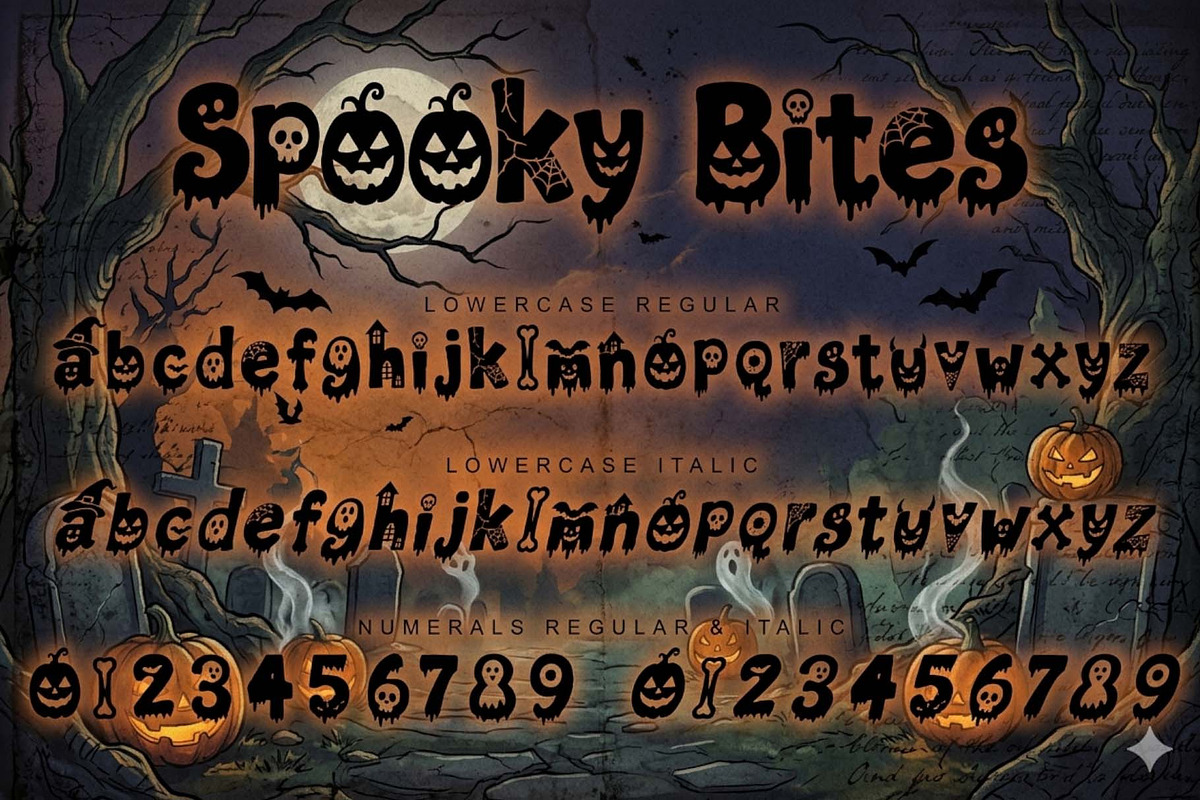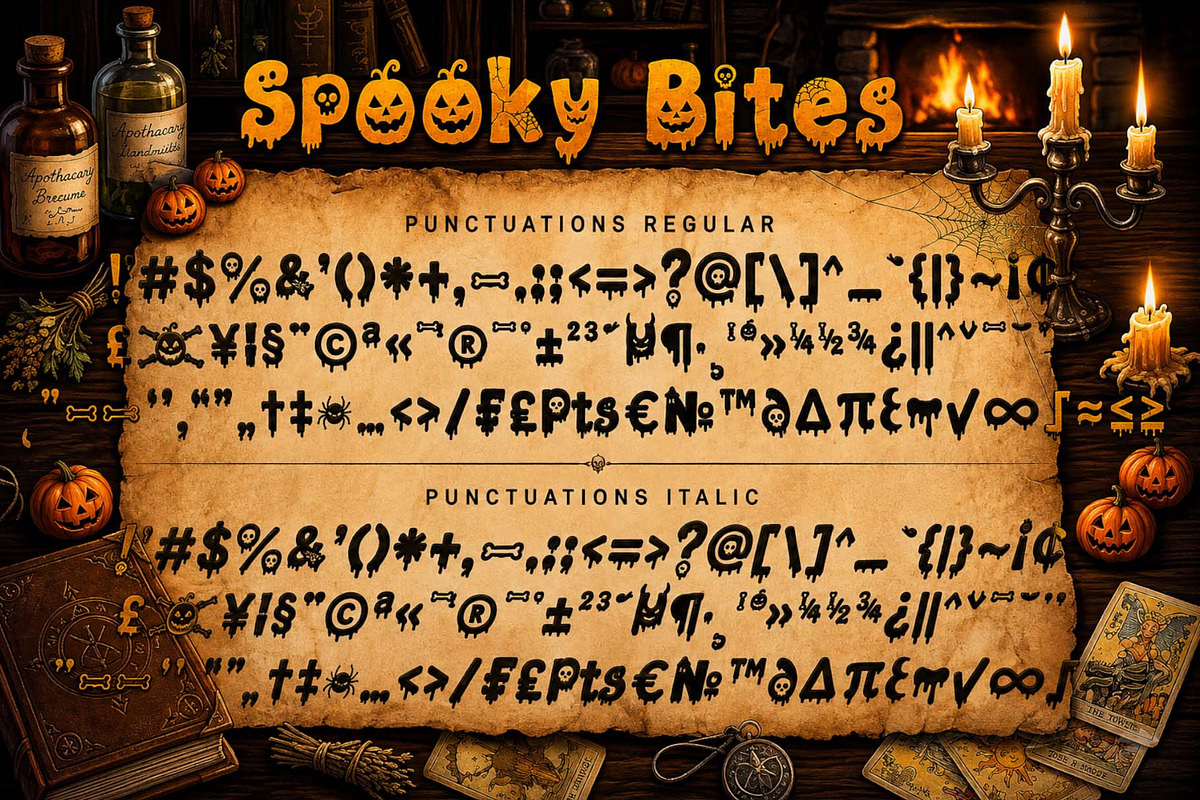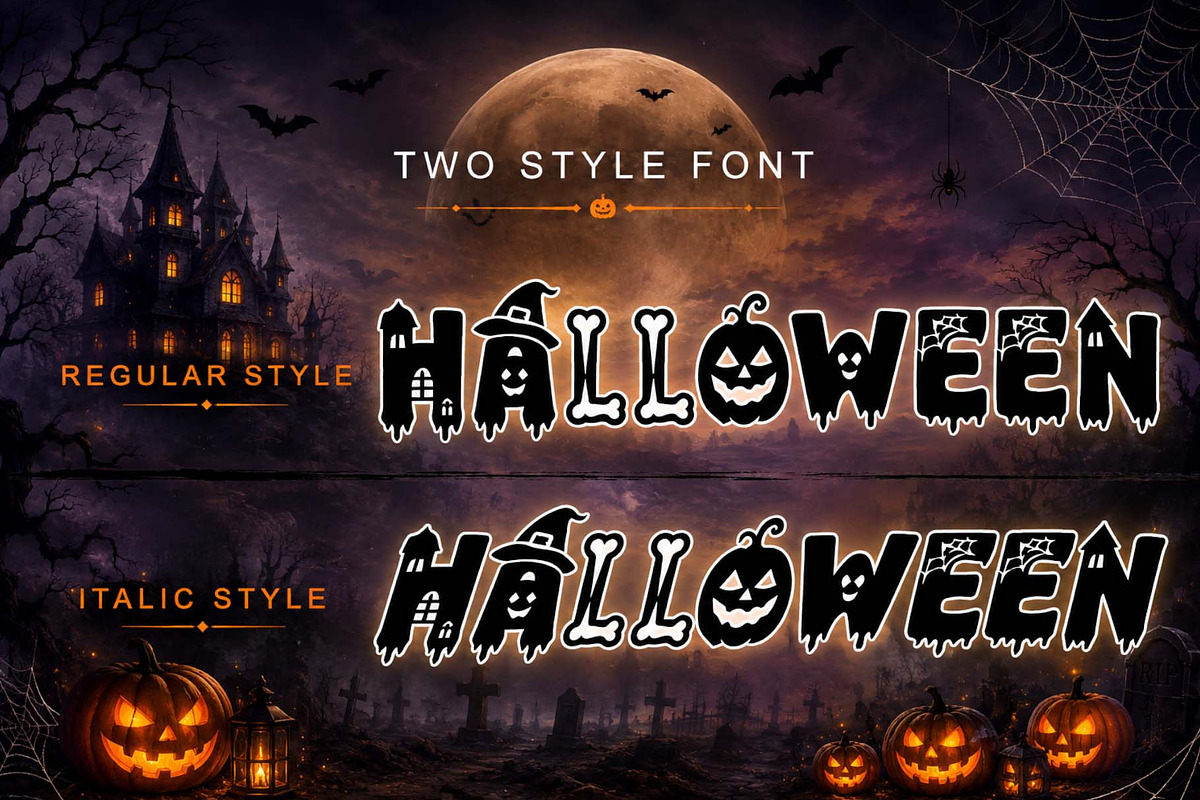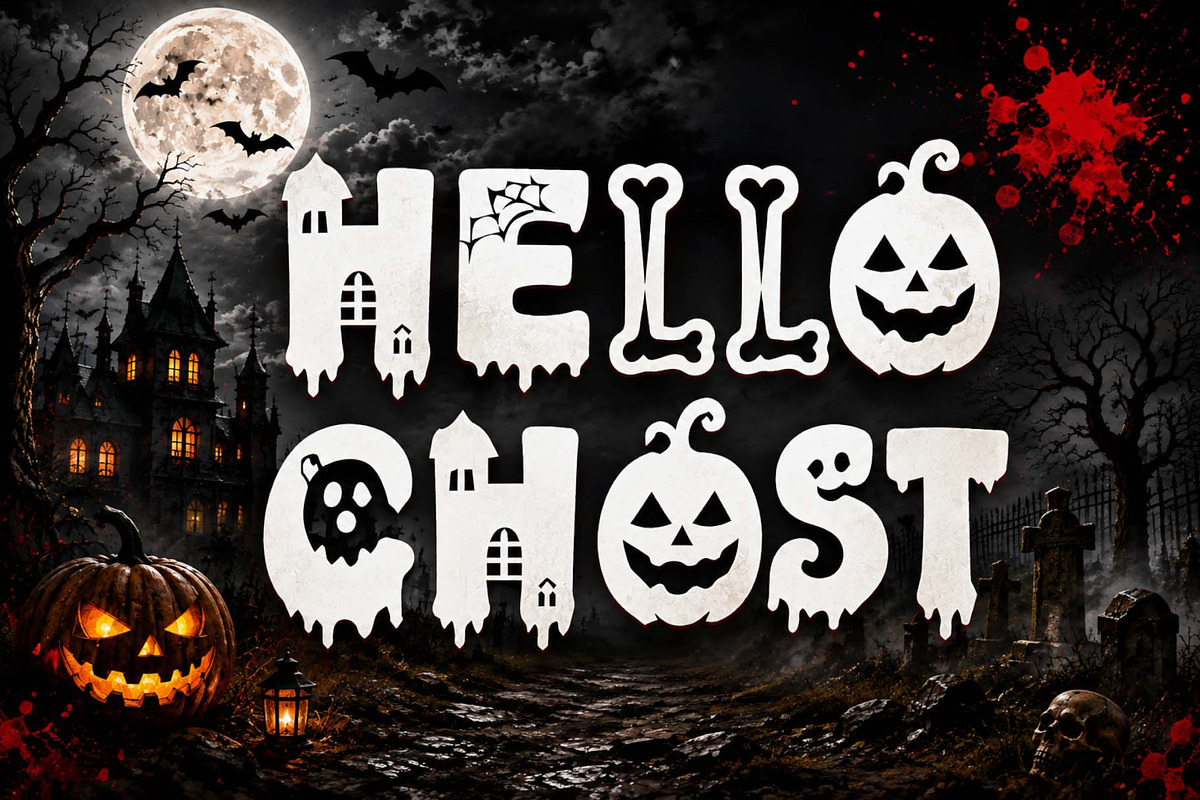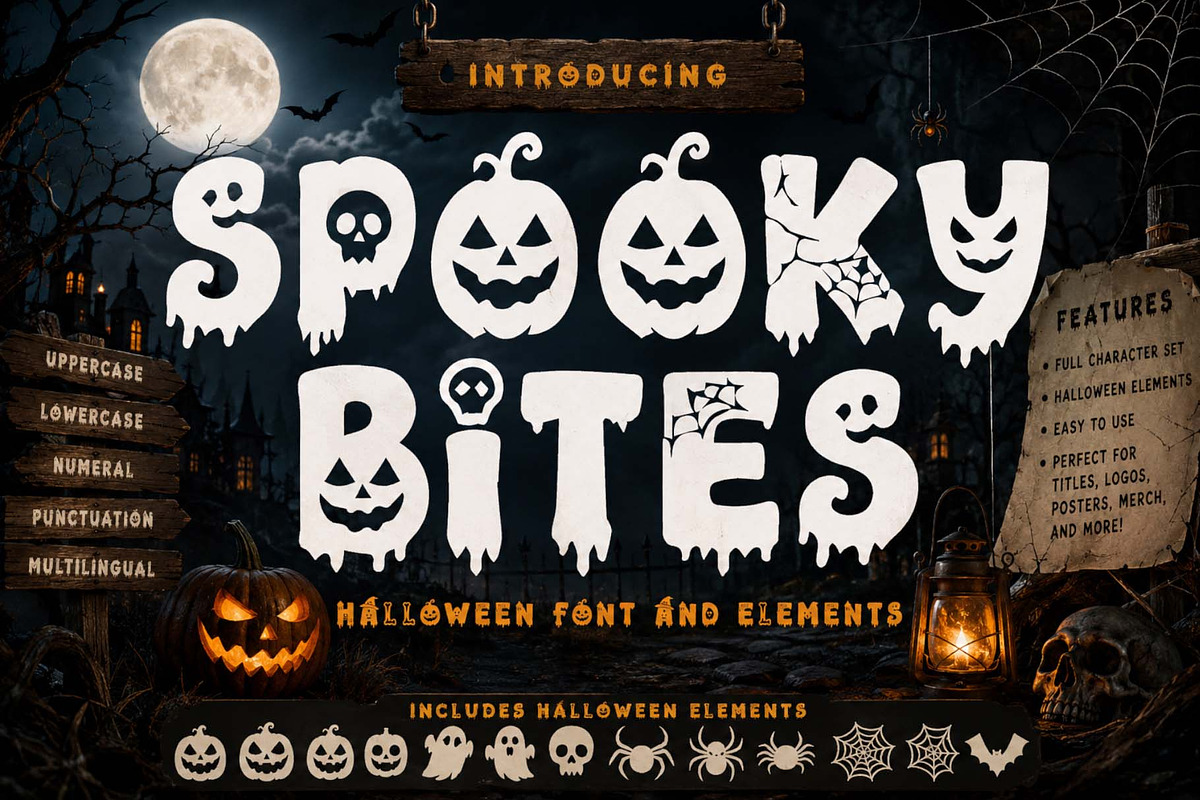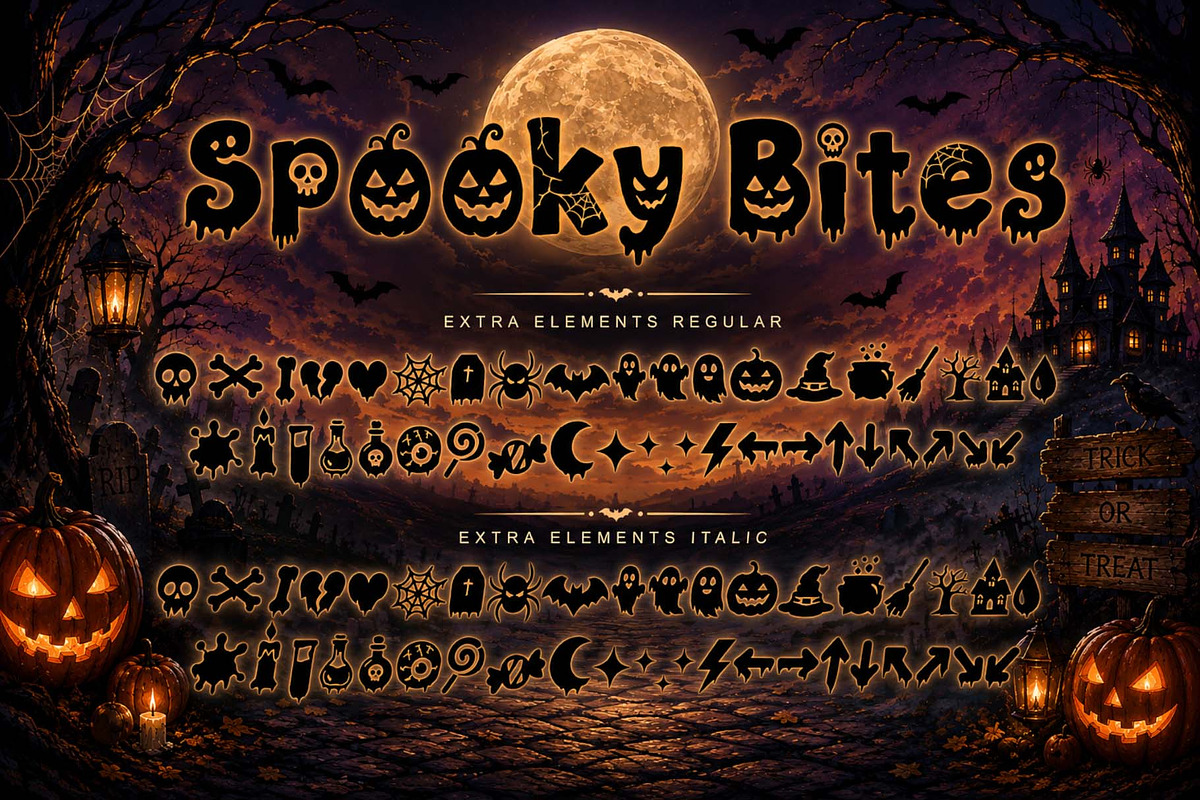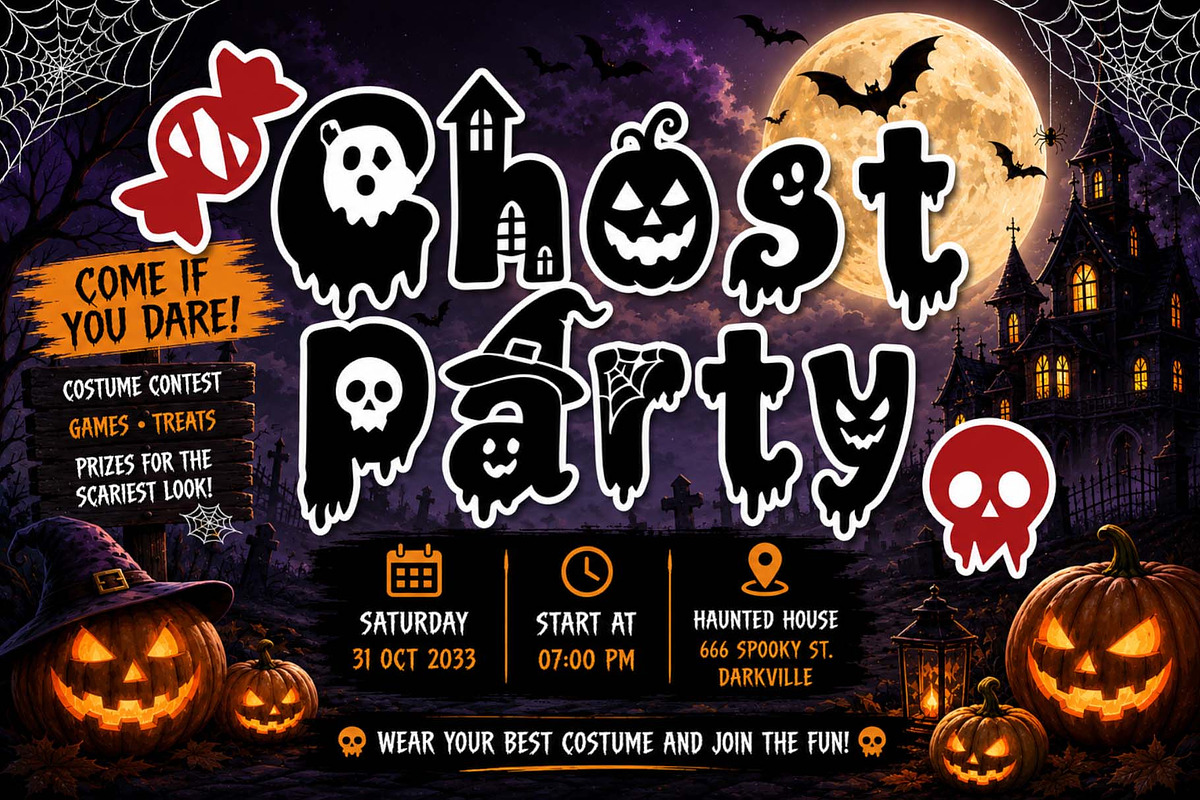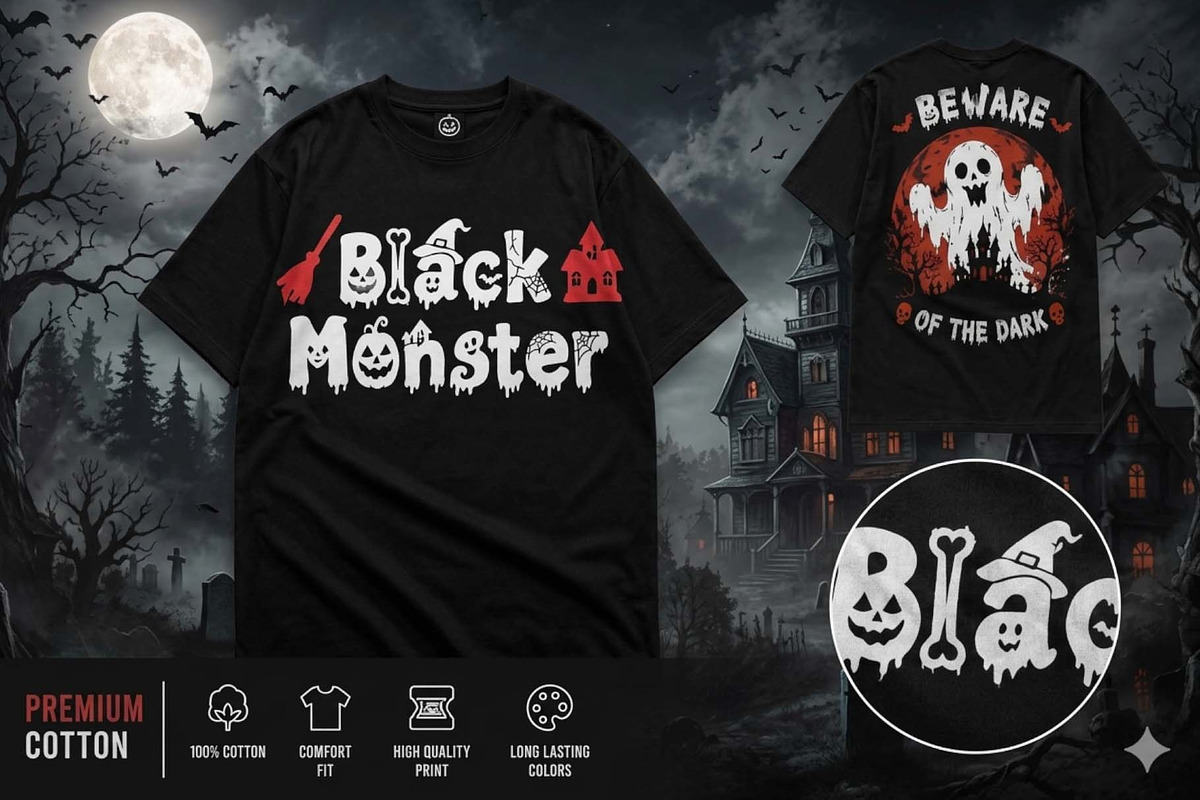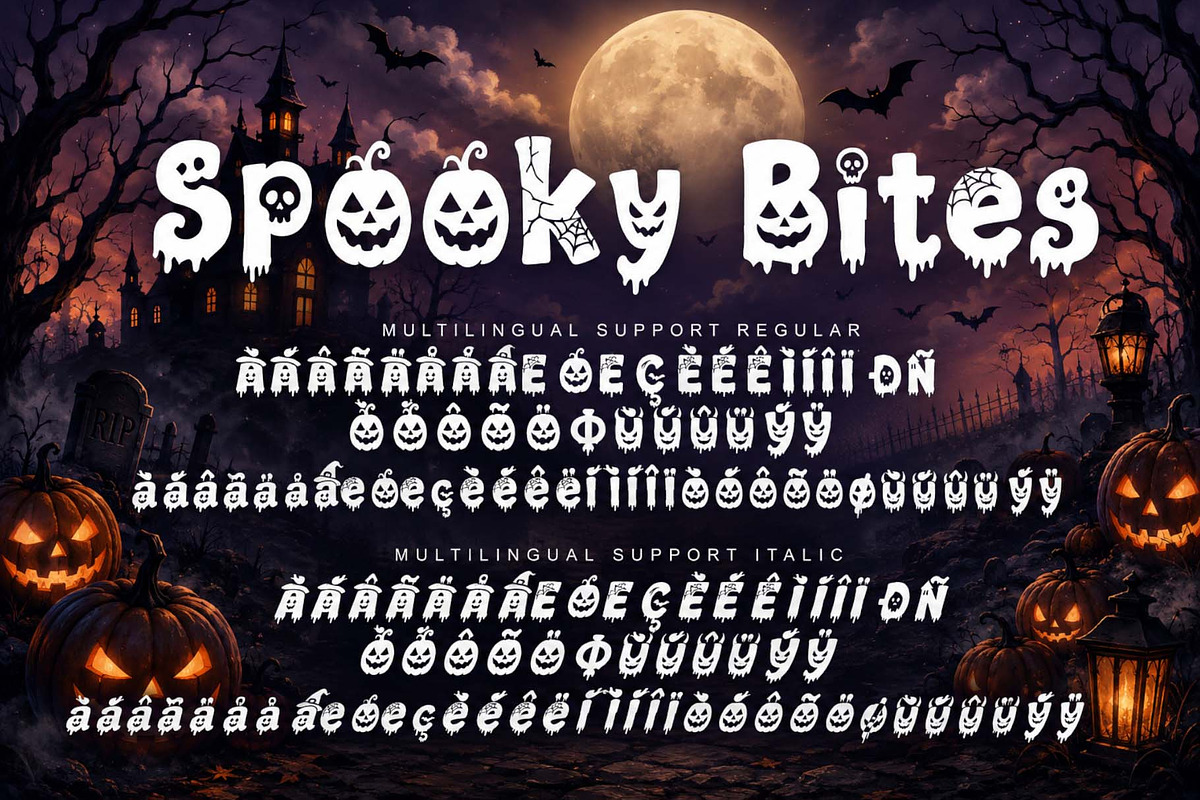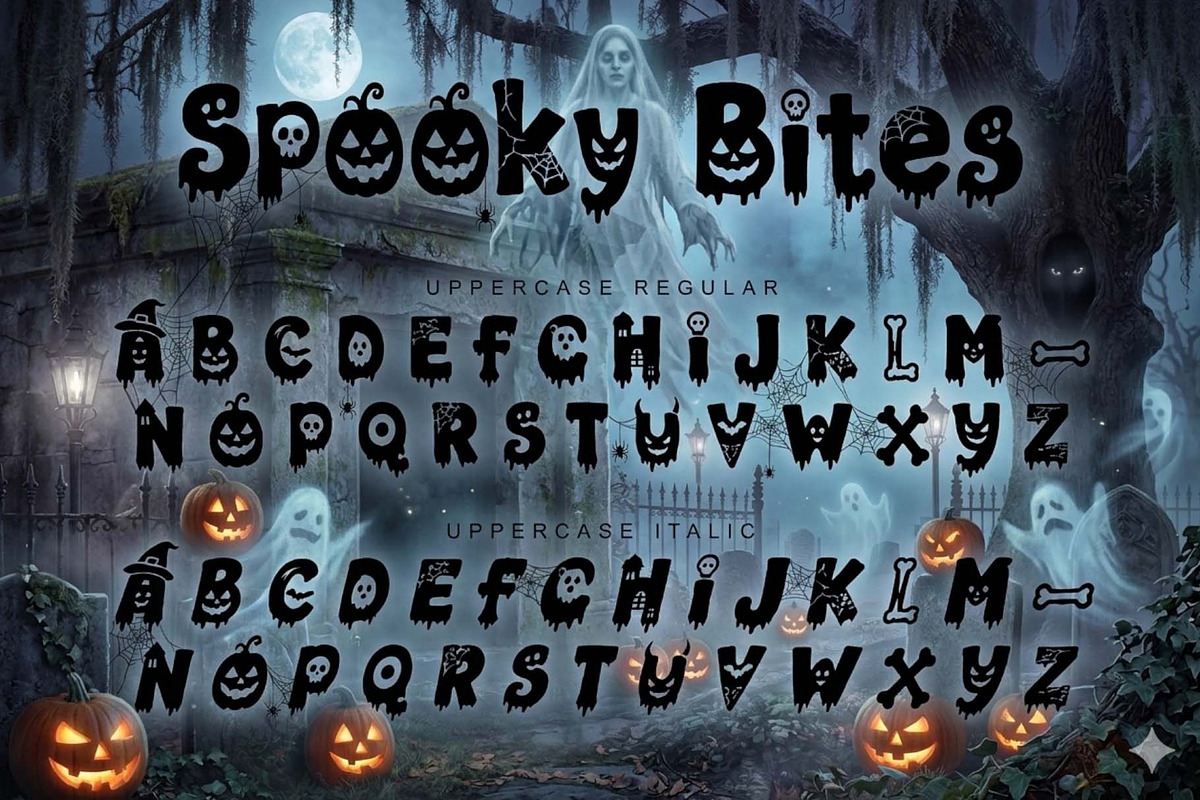
Spooky Bites
Spooky Bites is a Halloween-themed display font. It features eerie, melting-style letterforms adorned with elements such as pumpkins, ghosts, skulls, spiders, cobwebs, bats, and other spooky graphics. It is perfect for Halloween posters, party invitations, logos, t-shirts, stickers, merchandise, and seasonal branding. The font comes with a complete character set and is available in two styles: regular and italic. It includes uppercase and lowercase letters, numbers, and punctuation, as well as multilingual support and extra graphic elements.